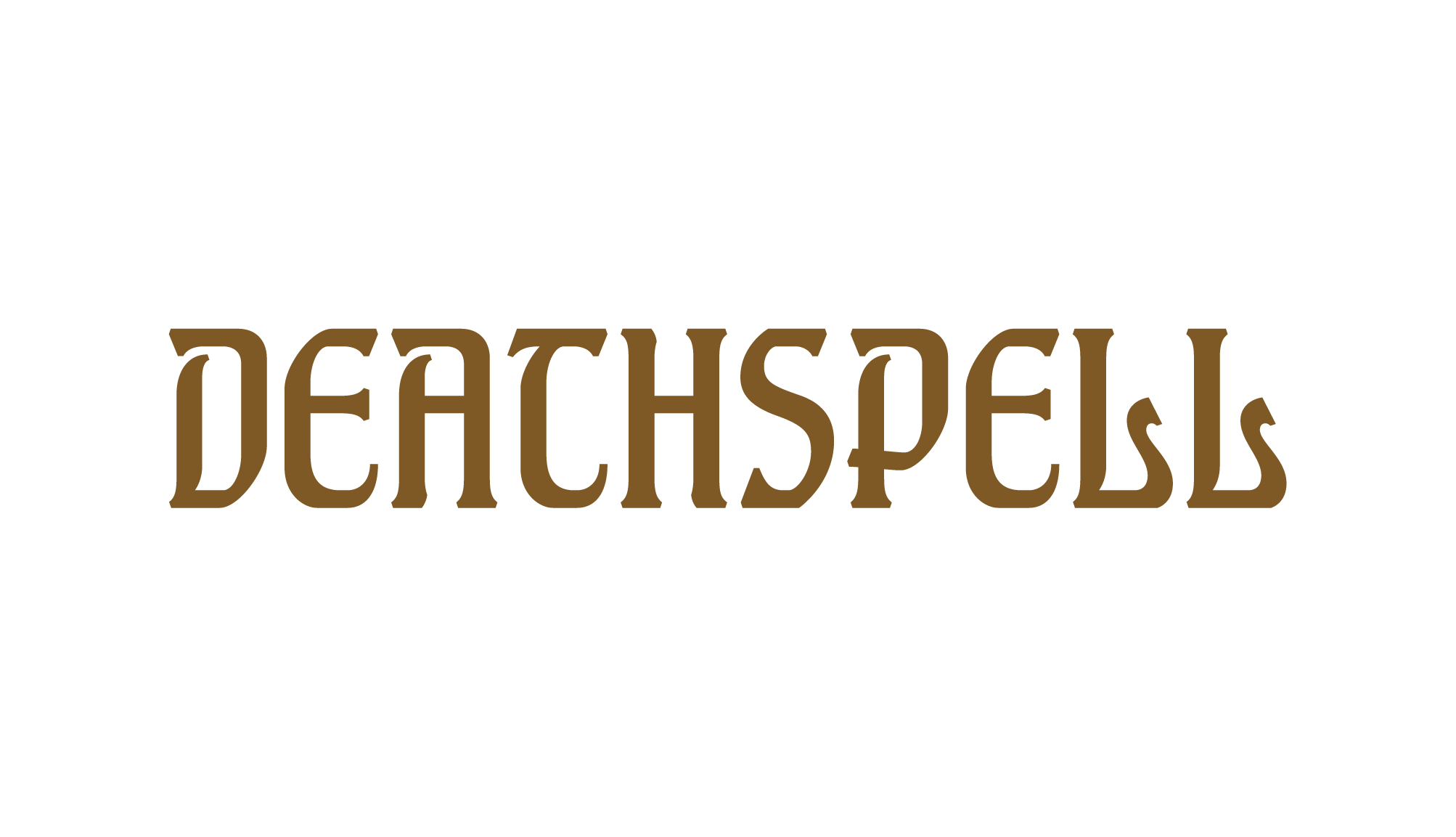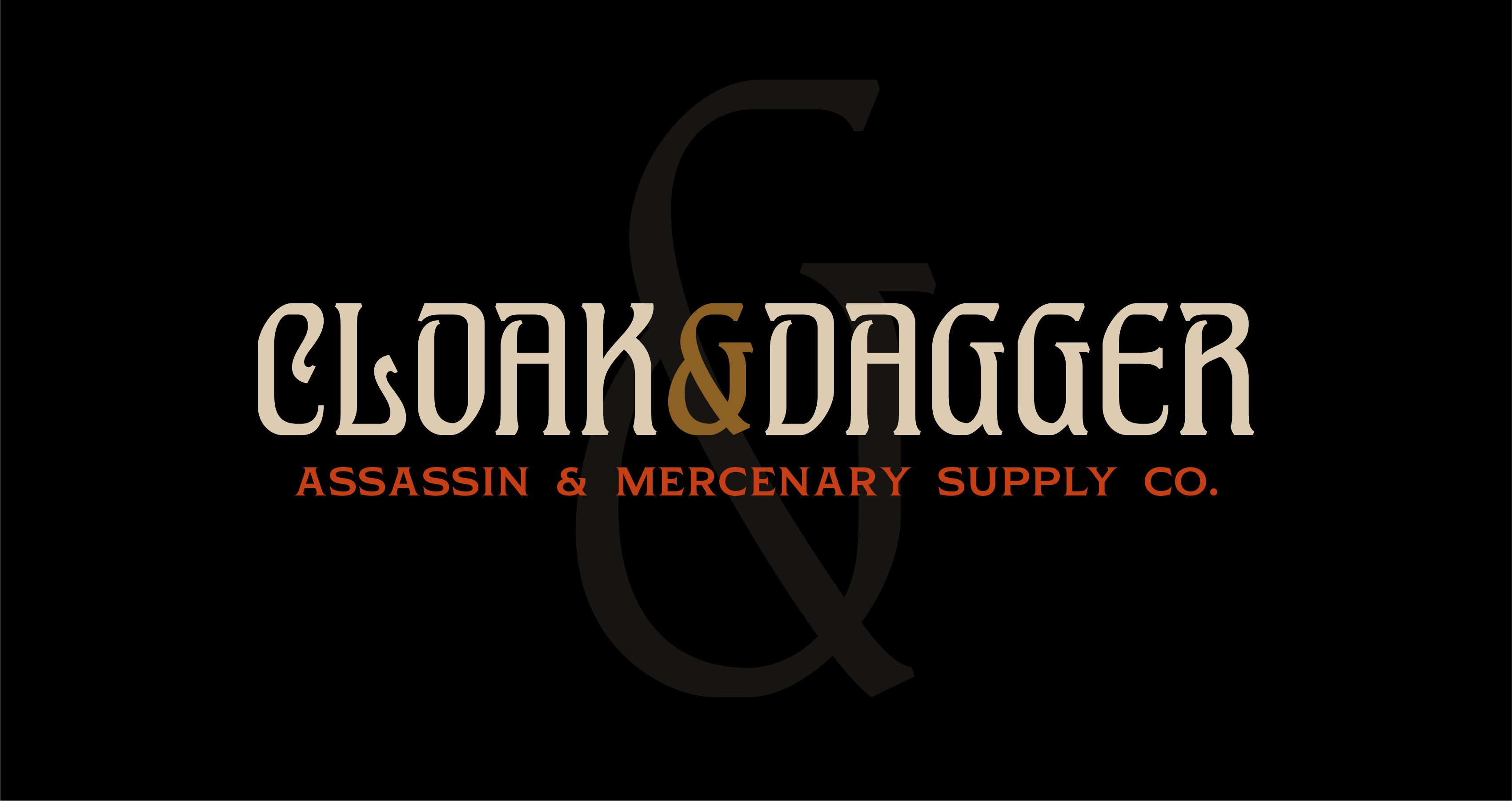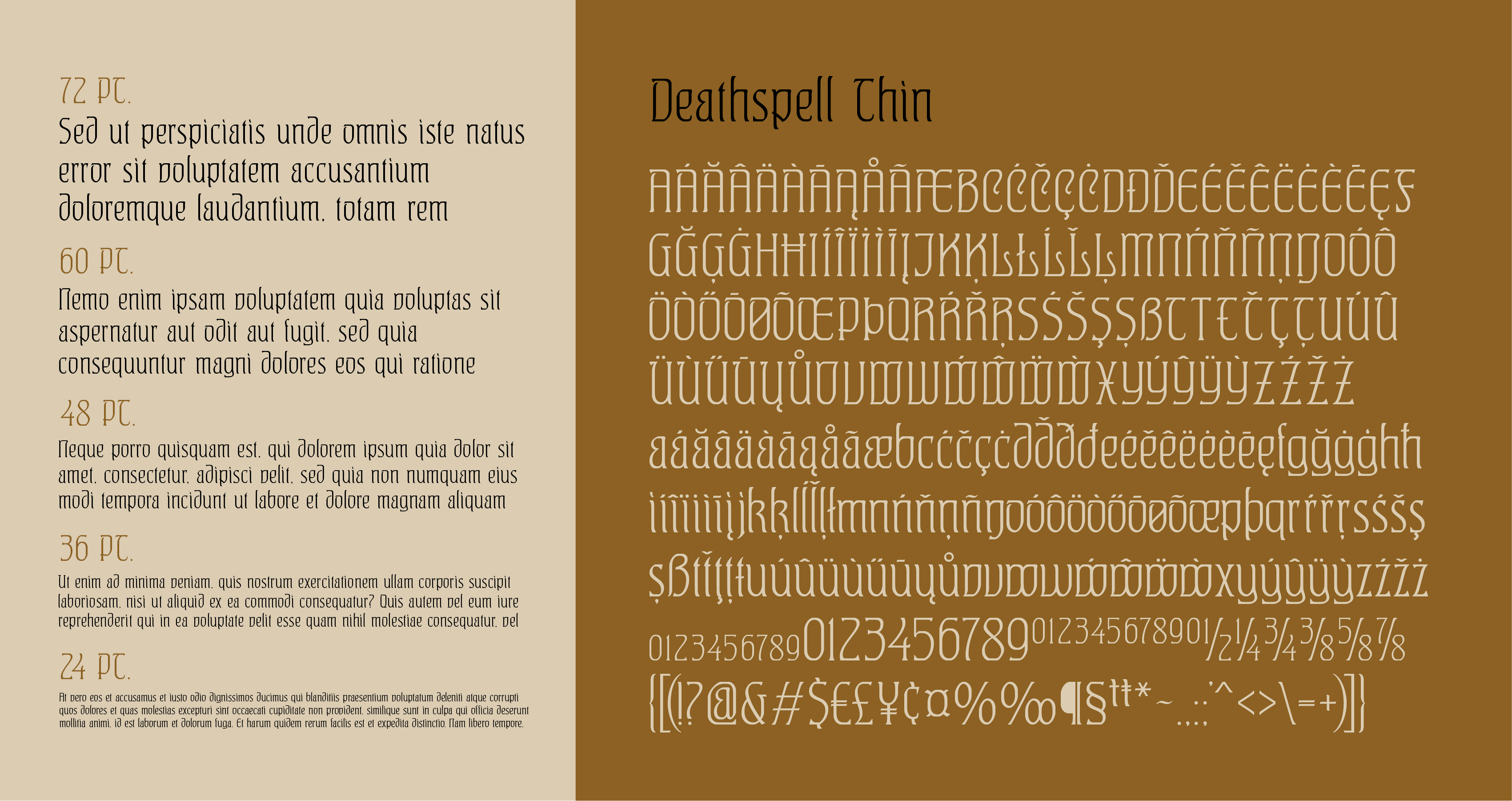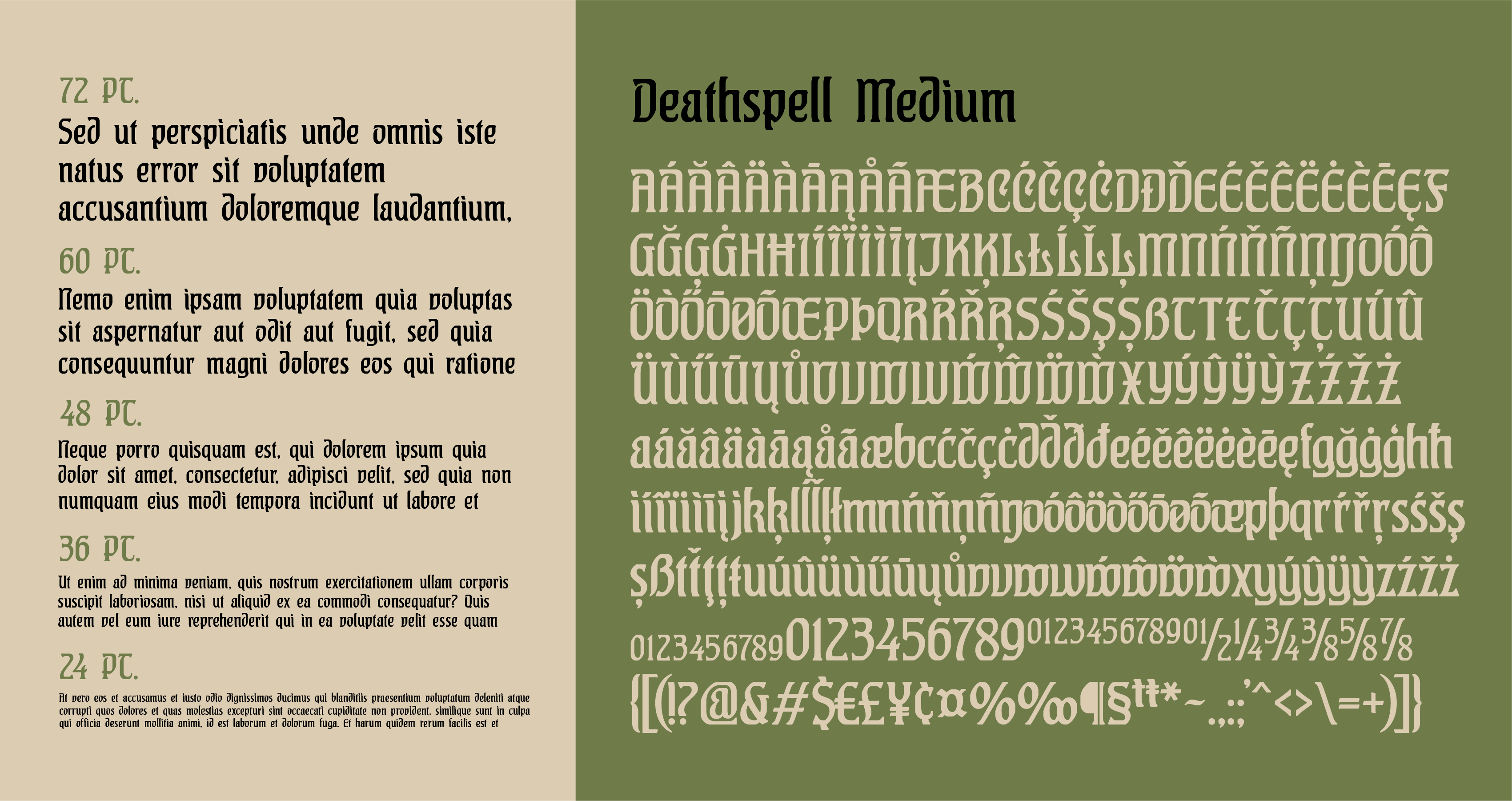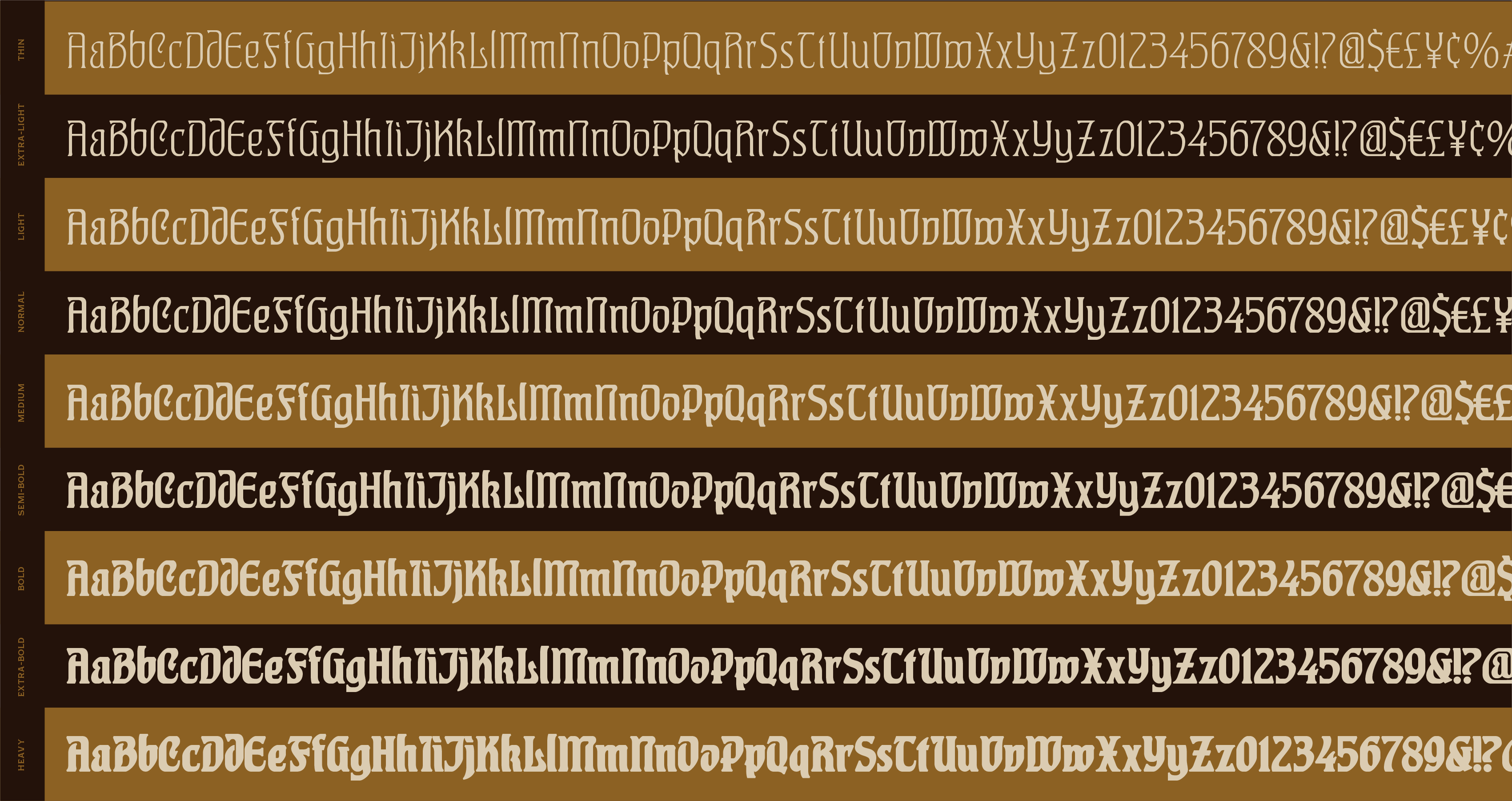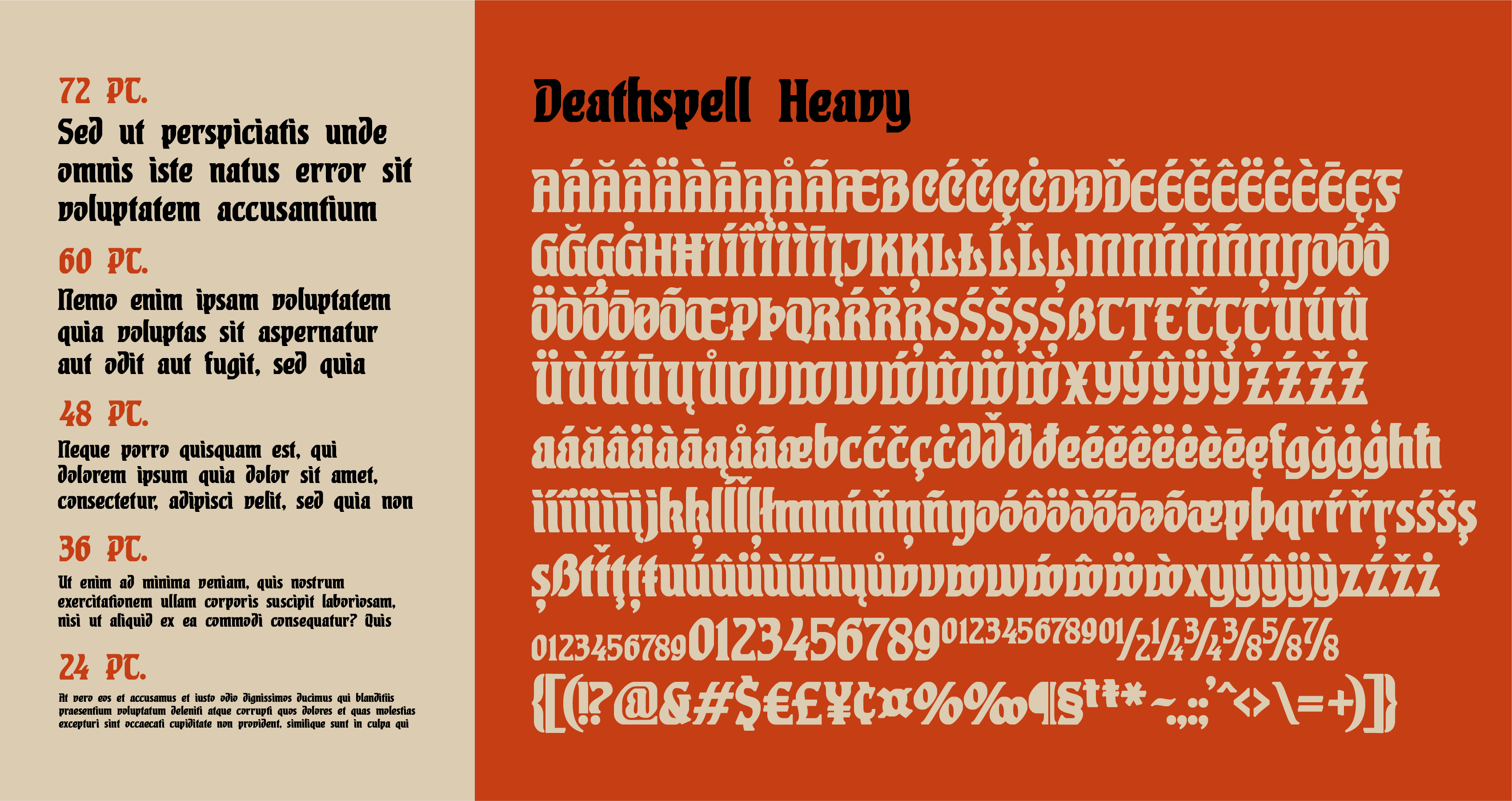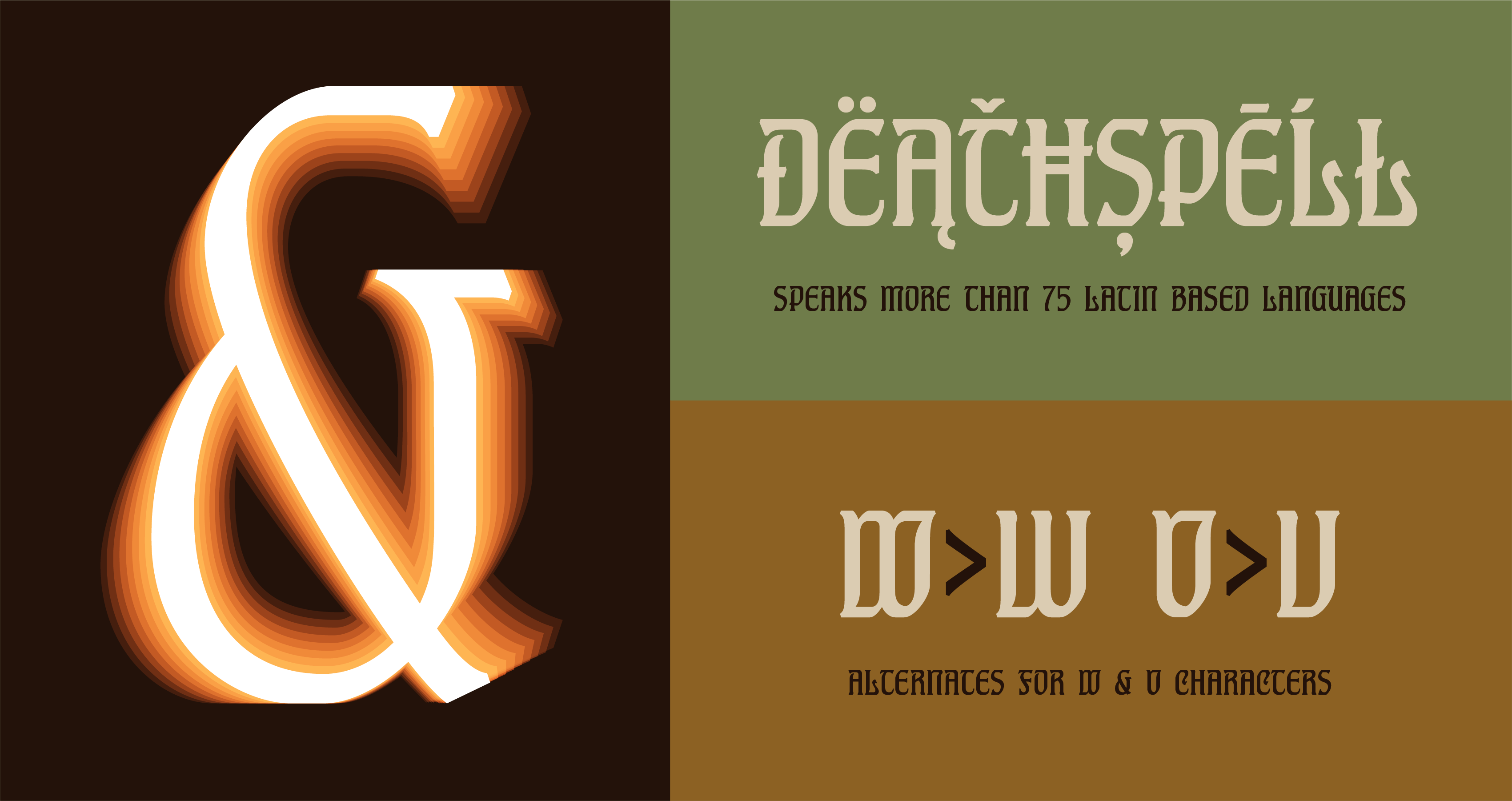
Deathspell
A DEVILISH HYBRID
Initially this typeface started off as a revival of a letter style called "Hohenzollern" (designed by Carl Albert Fahrenwaldt (1864-1941) which I found in the 1909 edition of the Schriften Atlas. This quickly became a greater endeavor to become a more complete and useful typeface for modern times beyond the 26 upper and lowercase characters and numerals that were presented.
The transitional aesthetic this letter style established between the blackletter of the past and the art-nouveau of the then-present resulted in a unique look that still feels fresh over 100 years later. Now for the first time ever, this century-old alphabet and numeral set has been expanded to include language support for over 75 languages, including custom designed diacritical marks, currency, punctuation, and symbols to match the rest of the character set in 9 distinct weights.
Features:
Uppercase & Lowercase
Numerals & Punctuation
9 Weights
380+ Glyphs per Style - 3,400+ Total
Supports 75+ Latin based languages